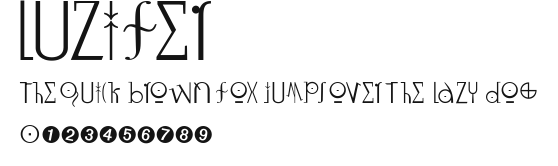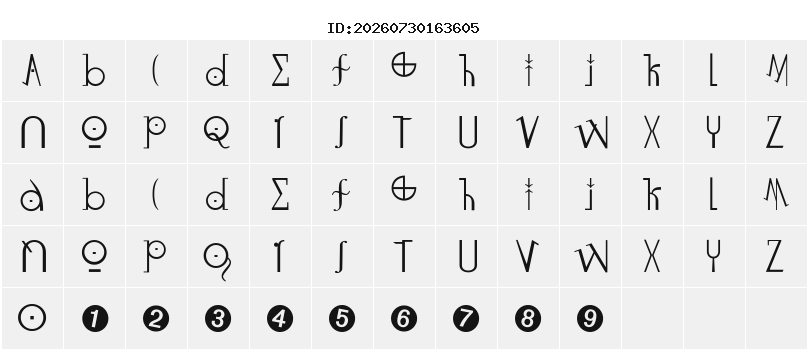
LuziFer Preview
• Font Name: LuziFer
• Full Font Name: LuziFer
• Version: 1.0 2003-02-21
About LuziFer.ttf
LuziFer.ttf is a modern, elegant sans-serif font designed for ultimate readability and visual harmony. Perfect for branding, headlines, web design, and print materials.